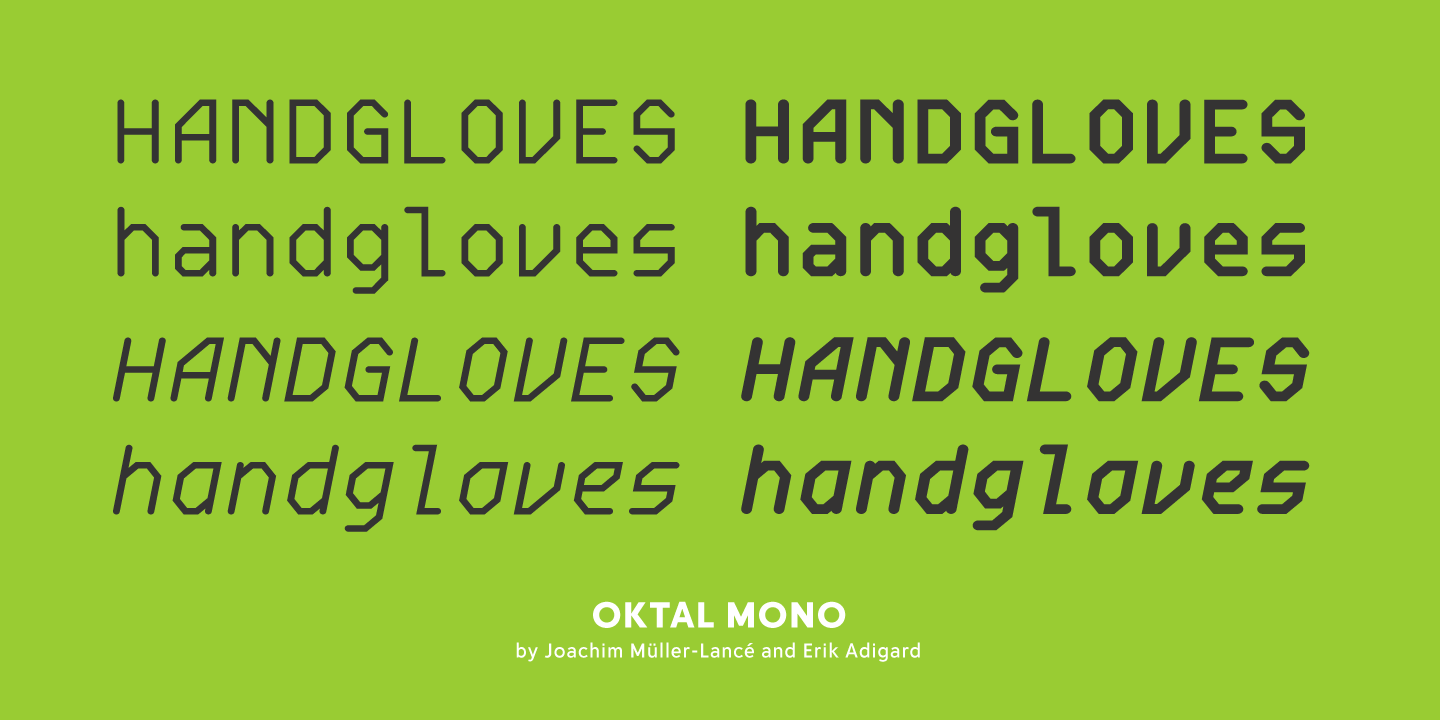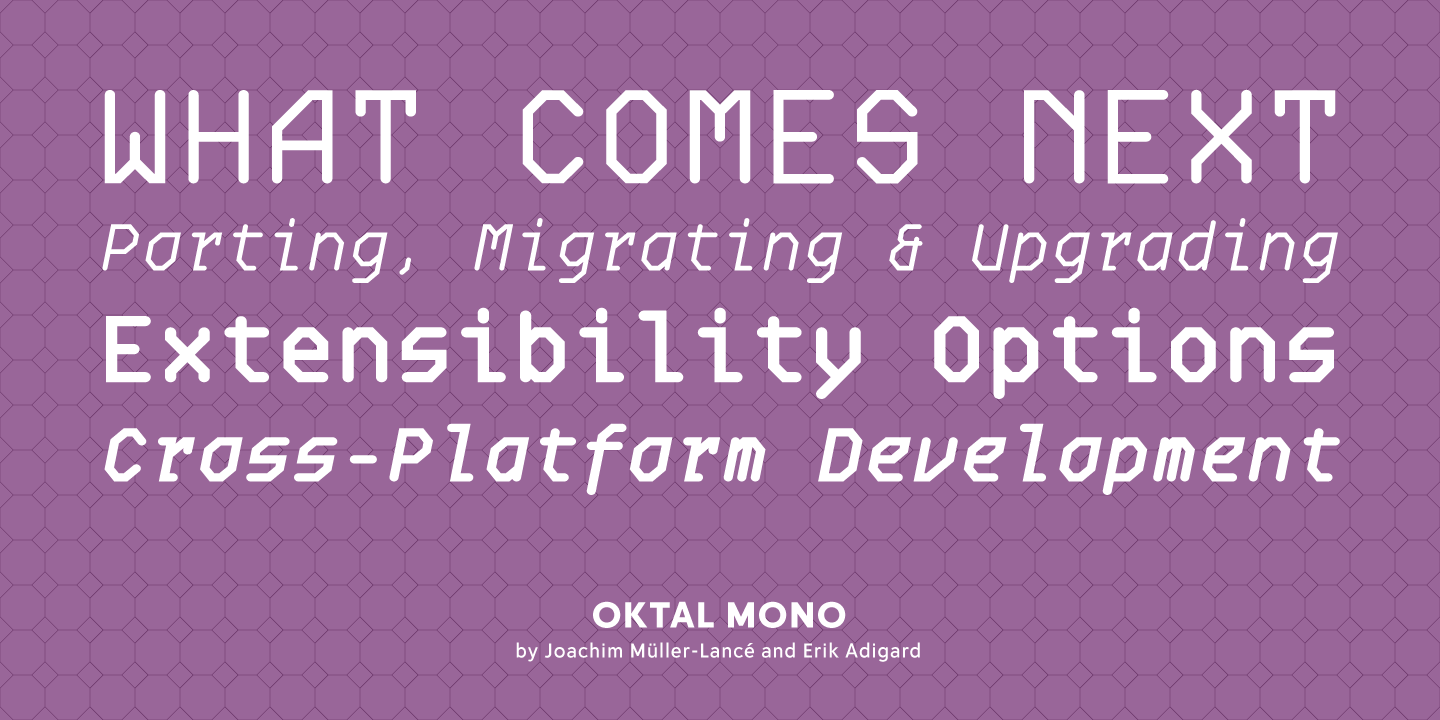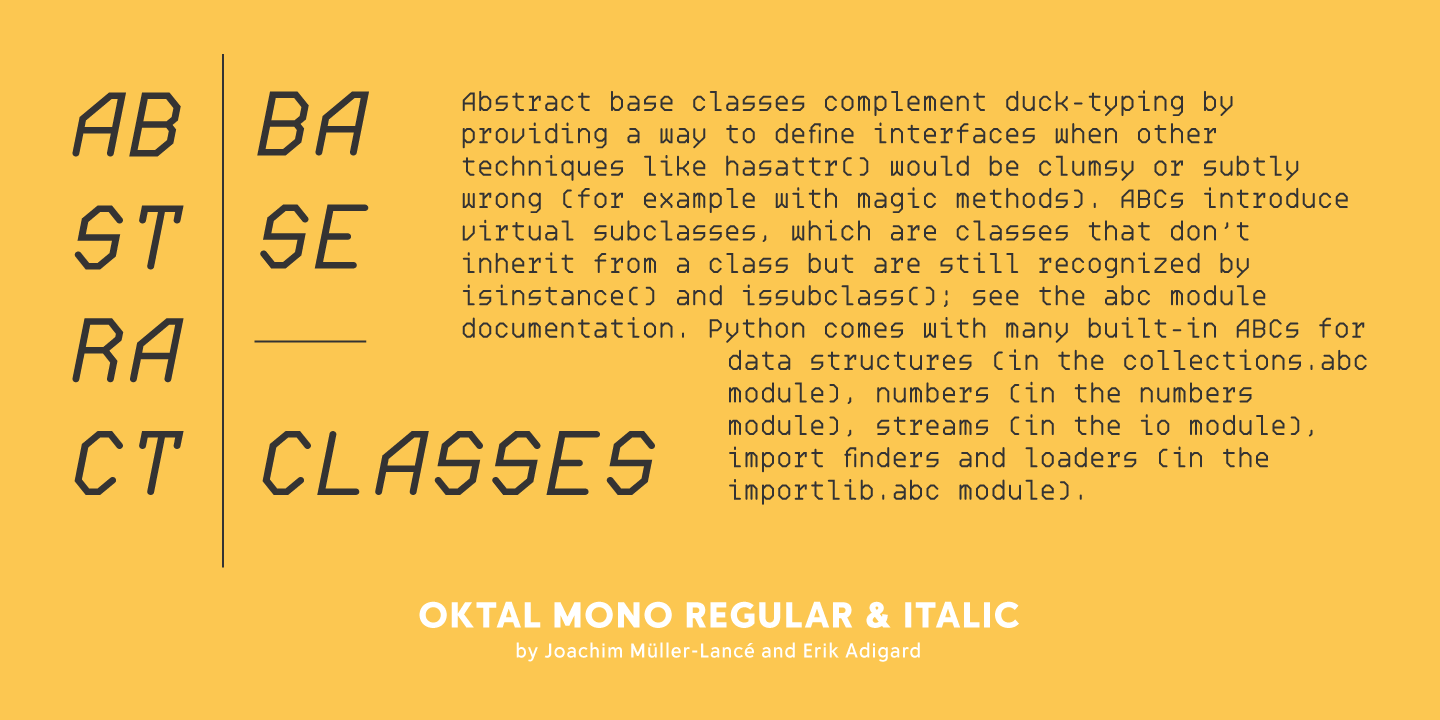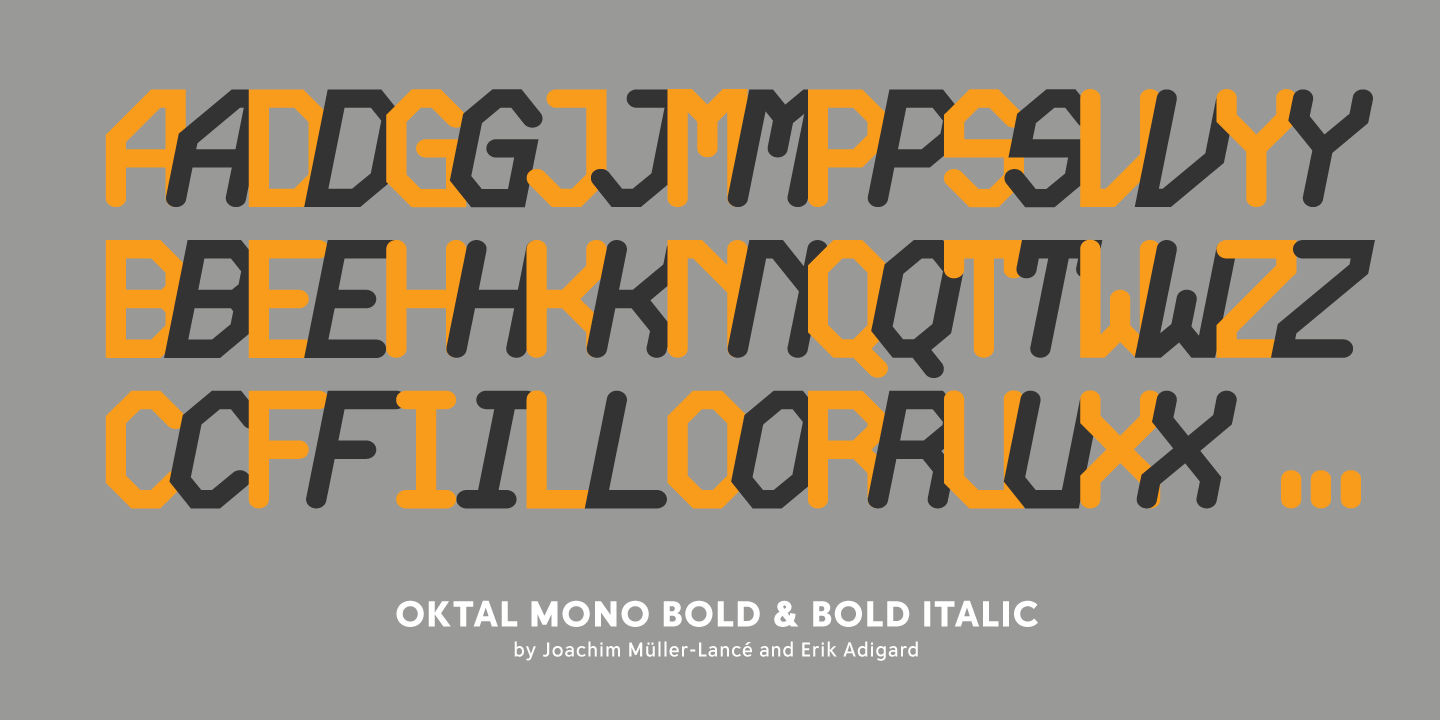
Oktal Mono
About Oktal Mono
A monospaced type family composed of entirely mono-linear and modular structure, Oktal Mono first began as a design-philosophical discourse between Joachim M